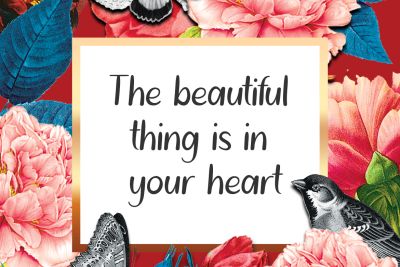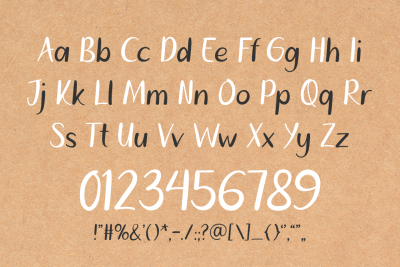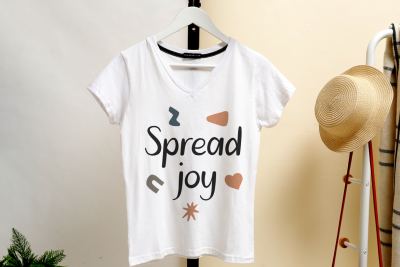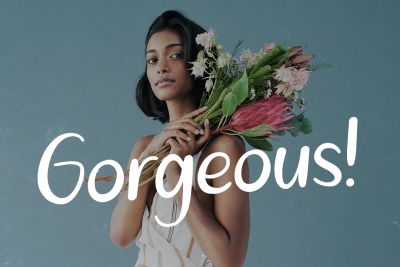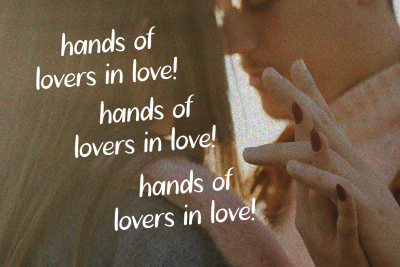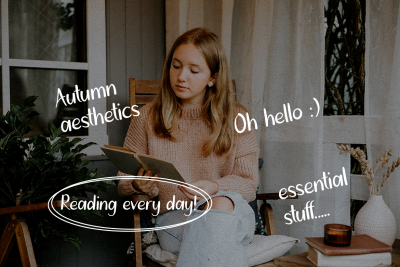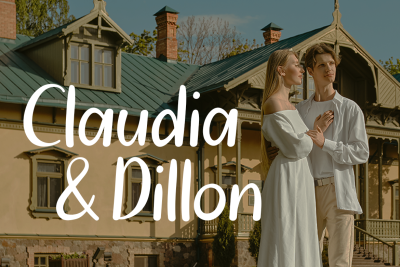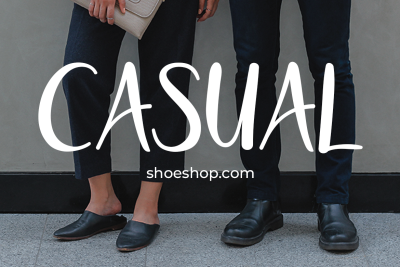
Handwriting Font Ashanty is a captivating typeface that combines the beauty of natural handwriting with a touch of elegance. Its smooth, flowing strokes and well-balanced characters bring a sense of authenticity and charm to any design project. Whether you’re crafting wedding invitations, creating social media graphics, or designing personal branding materials, this font is the perfect choice. Handwriting Font Ashanty offers versatility, making it suitable for both casual and formal designs. It provides a harmonious balance between creative expression and professional appeal, ensuring your designs stand out.
This font’s timeless design exudes warmth and sophistication, making it ideal for heartfelt and impactful projects. Its legible and clean appearance makes it easy to work with, while its delicate curves add a sense of grace and refinement. From digital media to printed materials, this font is adapts beautifully to different contexts, ensuring your message resonates with your audience. Whether you’re aiming for a modern aesthetic or a vintage-inspired look, this font delivers unmatched versatility.
Handwriting Font Ashanty Who Is It Suitable For?
Handwriting Font Ashanty is perfect for designers and creatives seeking a font that combines elegance with personal charm. Wedding planners and event organizers will find this font indispensable for designing save-the-dates, invitations, and thank-you cards. Its romantic and sophisticated style is well-suited for creating memorable event materials that leave a lasting impression.
Small business owners in the fashion, beauty, or lifestyle industries can use Handwriting Font Ashanty to elevate their branding. Whether for product packaging, logos, or promotional materials, it conveys a sense of refinement and individuality. It helps businesses establish a deeper emotional connection with their customers, enhancing brand loyalty.
Social media creators will love how this font transforms posts, banners, and stories into stylish and relatable content. It’s perfect for Instagram captions, Pinterest graphics, and YouTube thumbnails, helping creators stand out in a crowded digital space. Educators, hobbyists, and crafters can also use it for classroom projects, handmade cards, or DIY crafts, adding a personal and heartfelt touch to their creations.
With its combination of beauty, versatility, and warmth, this font is enhances every design it touches. Whether you’re a professional designer or a hobbyist, this font is a valuable addition to your toolkit.